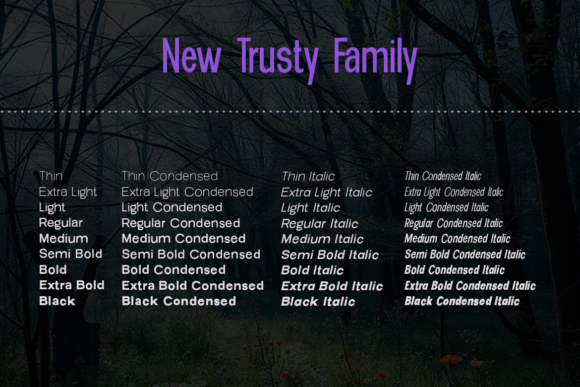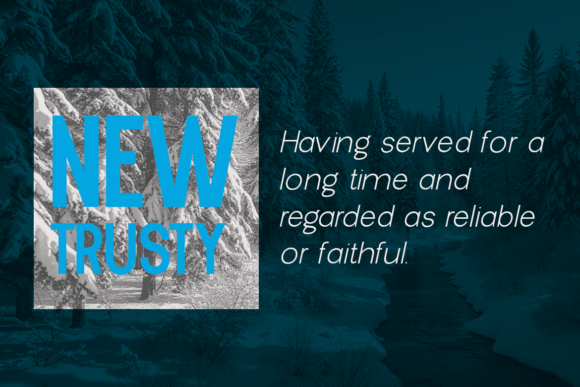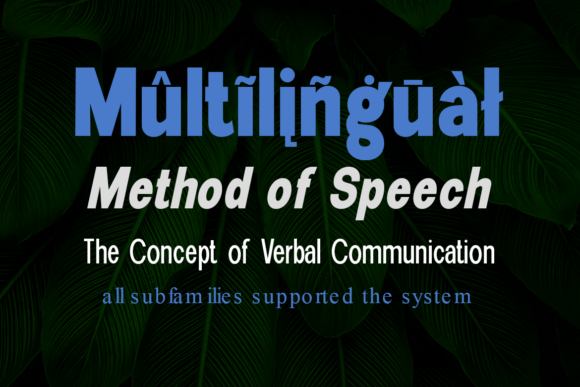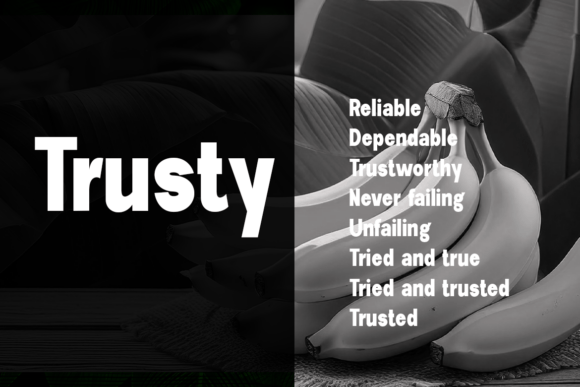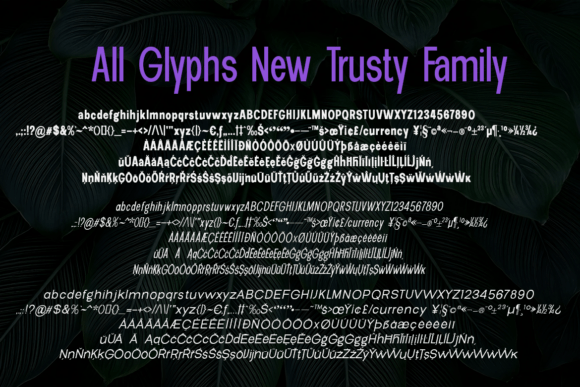
Introduction to New Trusty Font
New Trusty typeface is a New Formal and Elegant Typeface created in a very bold style.
New Trusty is a variation font with a slim and normal style, available in 18 straight weights and 18 more italics, totaling 36 font variations This font looks amazing in logos, magazines, and on movie screens.
Key Features of New Trusty Font